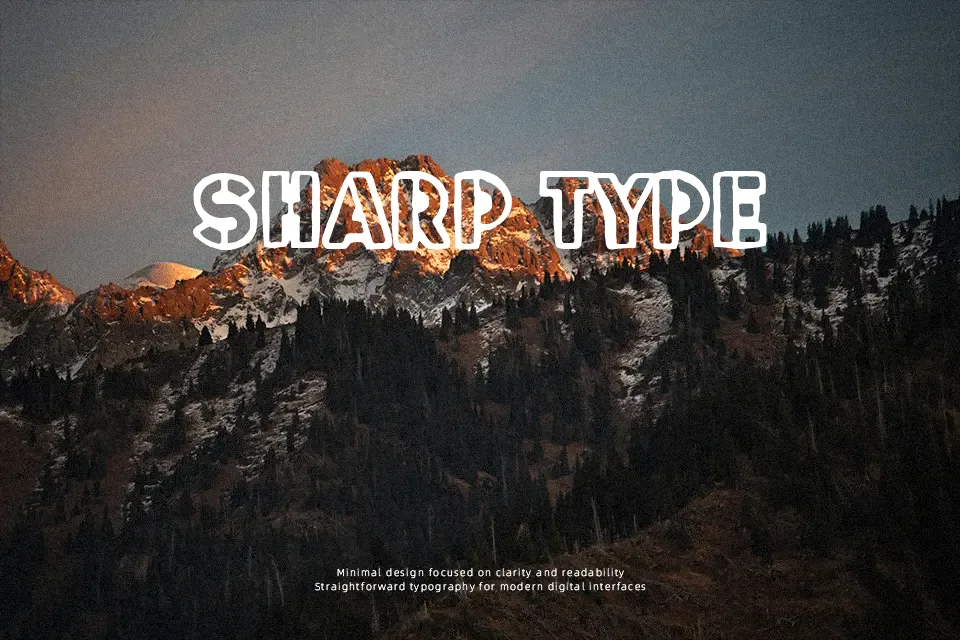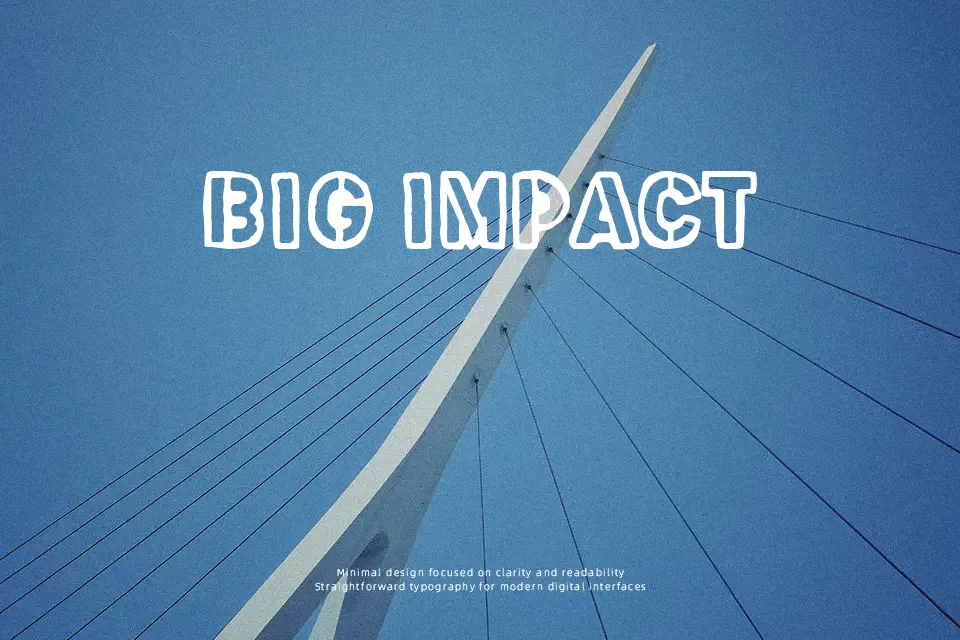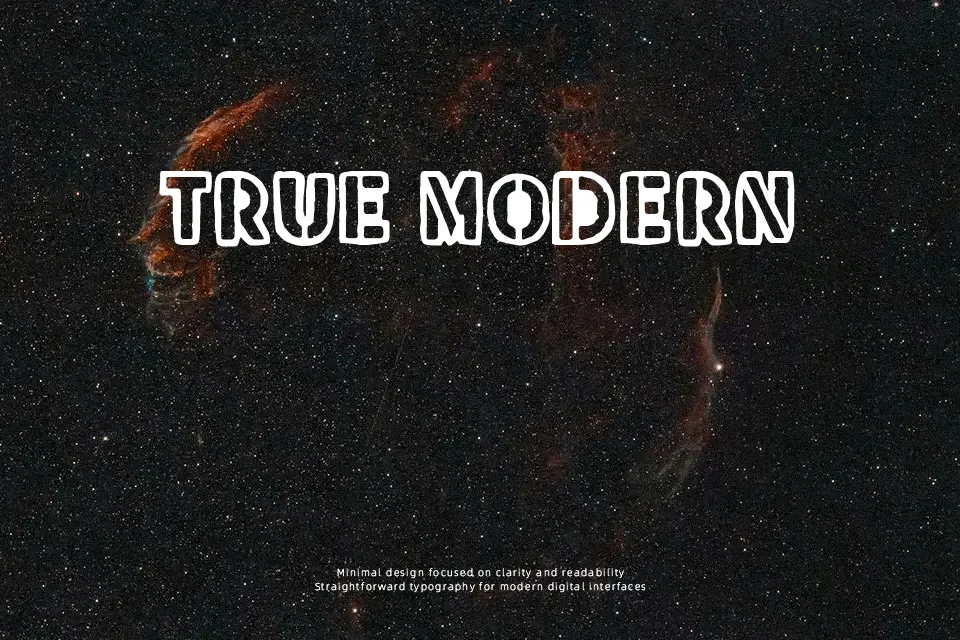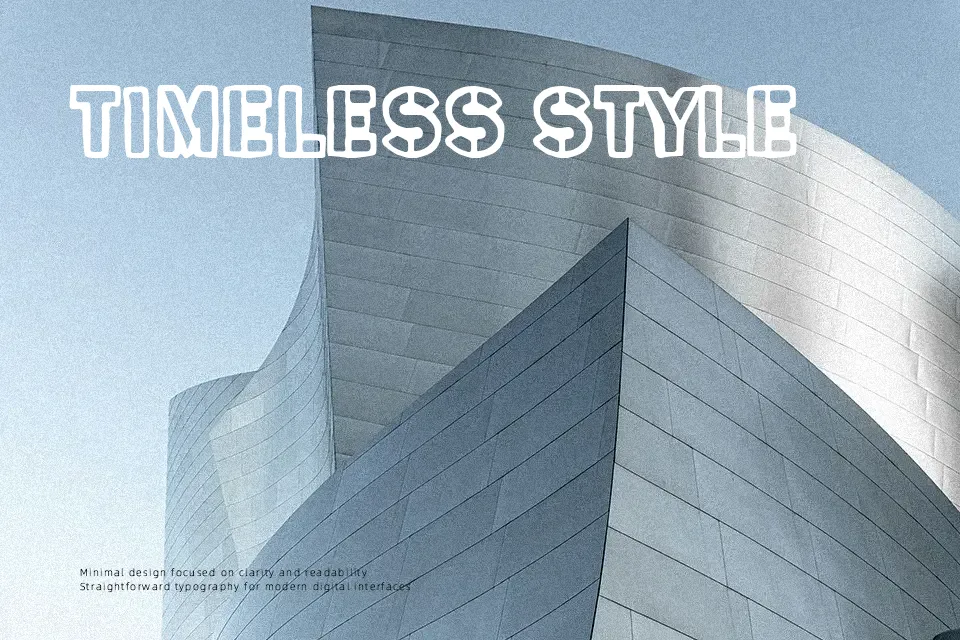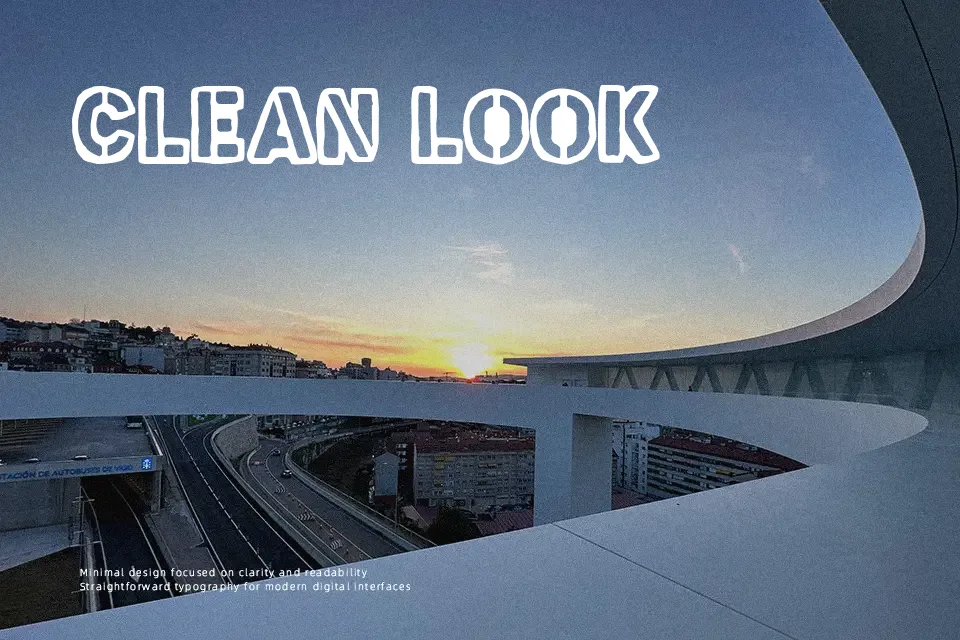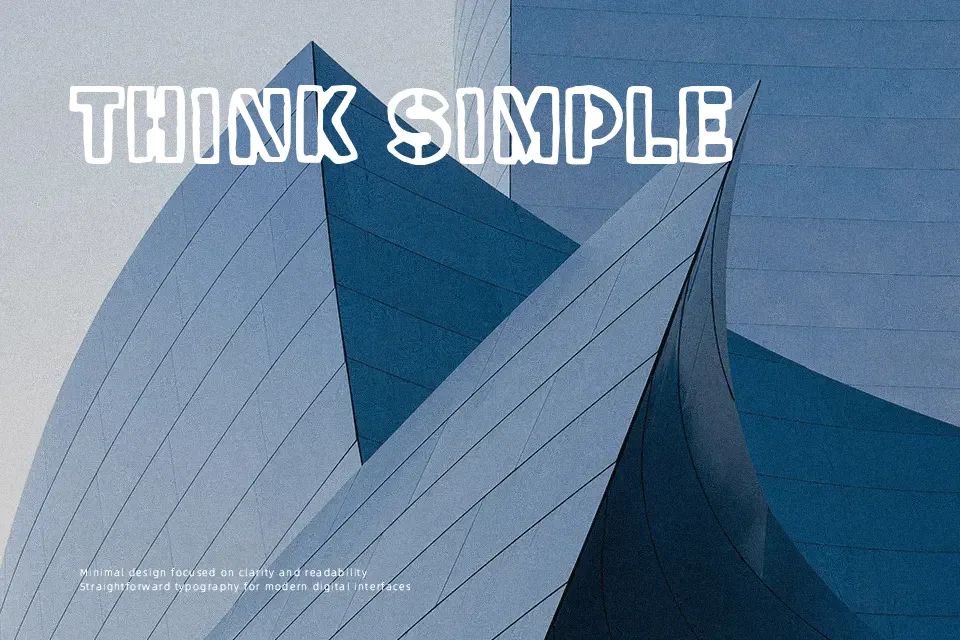
Big Storm Stencil Font
Big Storm Stencil reverses the traditional stencil concept by featuring irregular black contours around inverted letterforms, creating a distinctive military or industrial appearance. The stroke weight is heavy and the spacing irregular, giving each character a weathered, almost hand-cut quality that feels aggressive rather than refined. This font works effectively when you need visual dominance in large-format designs like concert posters, gaming graphics, or streetwear branding where the unconventional structure reads as intentional rebellion. However, the inverted stencil approach sacrifices legibility at smaller sizes—what looks commanding at 72pt becomes confusing at 14pt. It also struggles in environments requiring professionalism or subtlety, as the rough edges and reversed contrast create a confrontational tone that overwhelms quieter content. The font performs best when paired with minimal supporting elements that don’t compete for attention.
– band merchandise and album artwork
– esports team branding
– military-themed posters
– urban fashion packaging
– body text or captions
– corporate presentations
– small mobile UI elements
– formal invitations
Perfect for branding, gaming, and music, with a bold and decorative style.